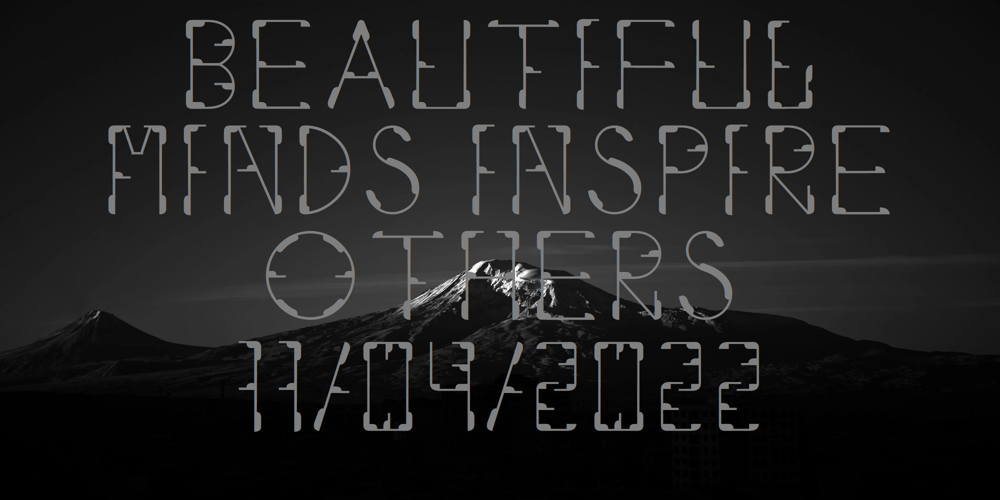
Ongunkan Latin Techno Font Family was designed by Osman Nuri ALKAN and published by Runic World Tamgacı. Ongunkan Latin Techno contains 1 styles and family package options. This font in the form of stylized techno, which I developed over my Ongunkan Modern Latin font, created a different perspective visually. Use it in good works.